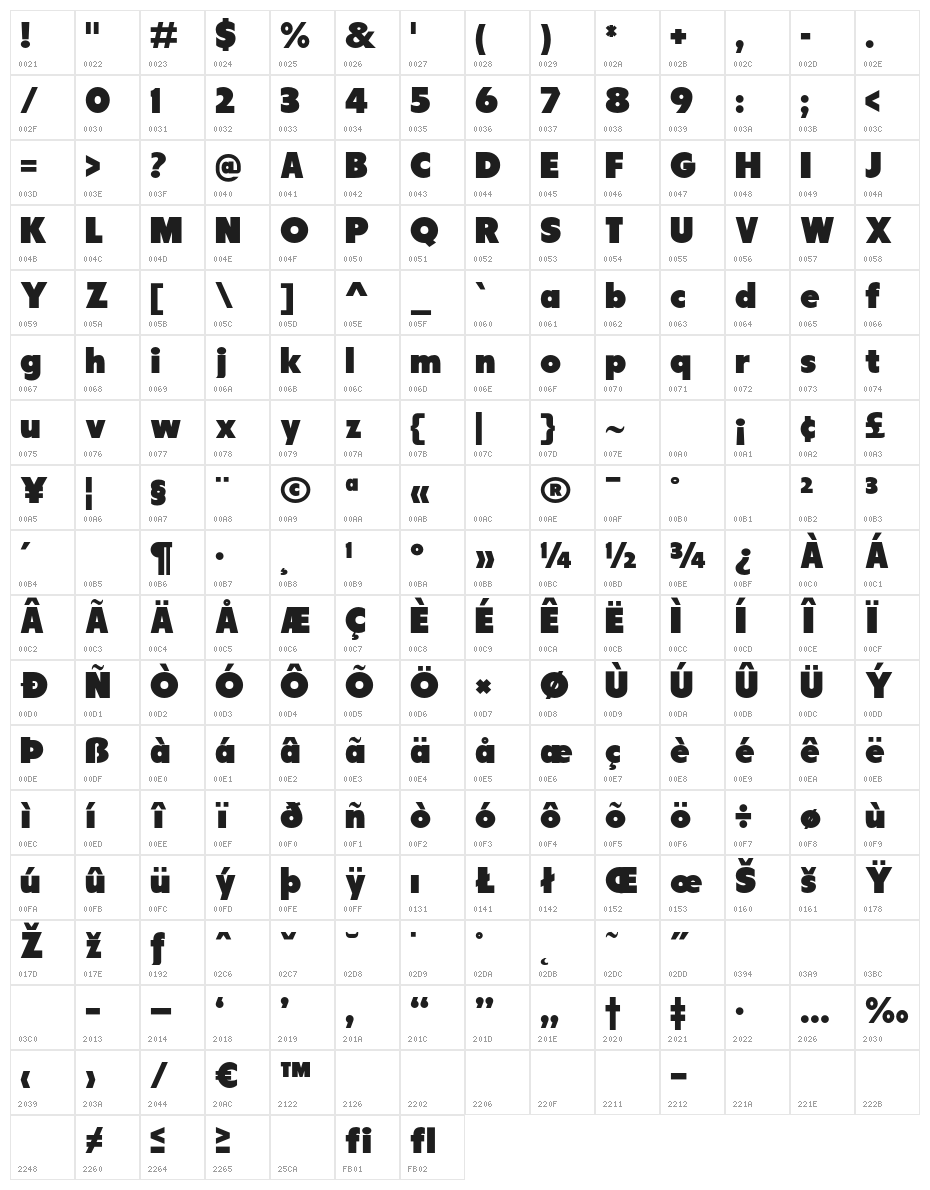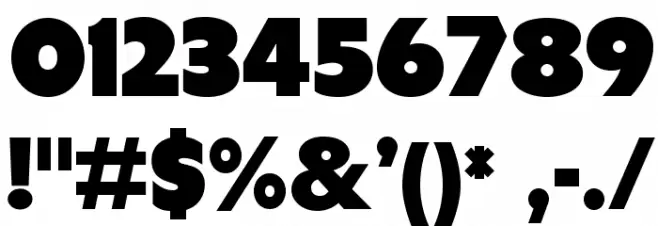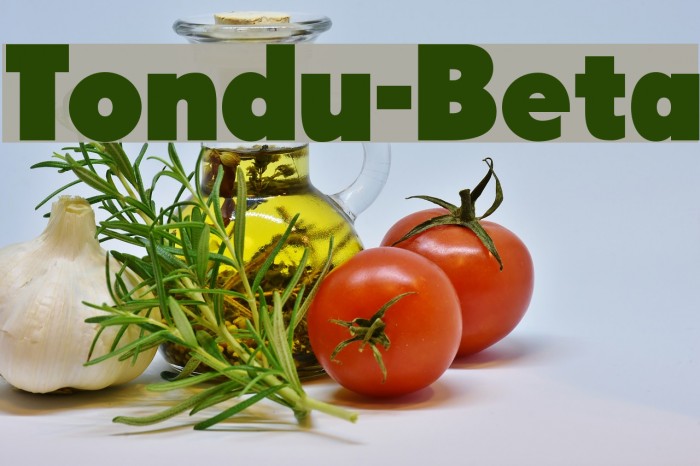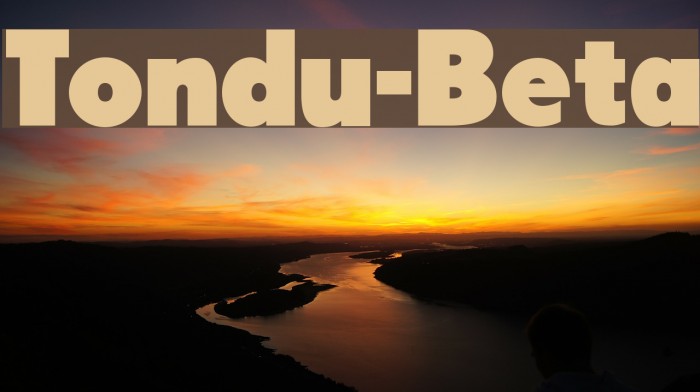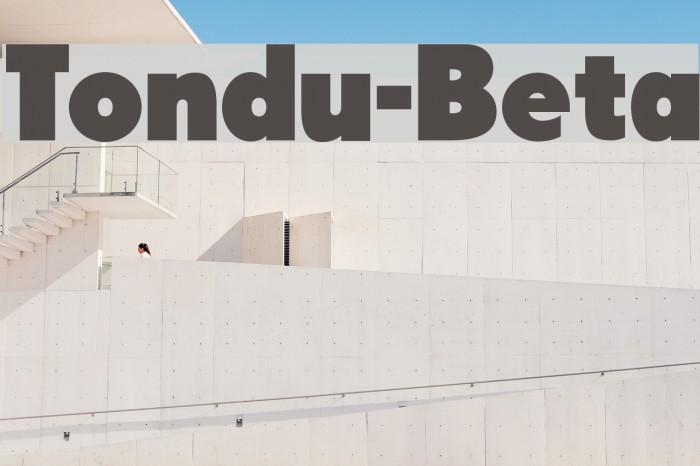
Tondu-Beta Font
Tondu-Beta Description
This font features bold, thick strokes with a strong presence, making it ideal for attention-grabbing designs. The characters are uniformly wide, with a slightly rounded appearance that adds a touch of friendliness to its otherwise robust and assertive style. The uppercase letters are particularly striking, with consistent height and width, while the lowercase letters maintain a similar weight, ensuring readability and balance. The numerals are equally bold, matching the overall aesthetic of the font. Special characters are clearly defined, maintaining the font's bold and impactful nature.
| Proposed Projects | Ideal for headlines, posters, branding materials, and any design requiring a strong visual impact. |